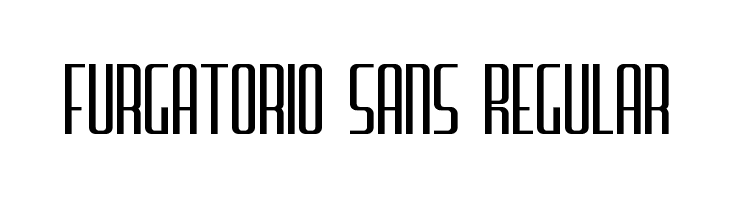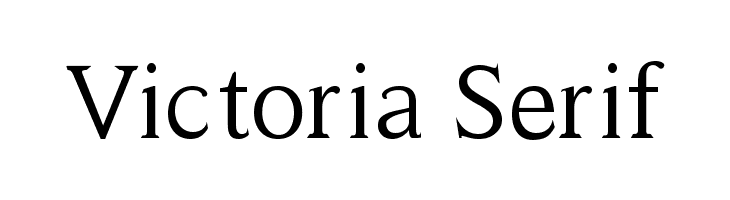
A playful, bold font with a bubble-like outline and cartoonish style.
A playful, bold outline font with a three-dimensional appearance.
A bold, distressed font with a rugged, textured appearance and hand-drawn quality.
A bold slab serif font with strong, block-like serifs and excellent readability.
A bold, narrow font with sharp angles and a modern aesthetic.
A geometric, angular font with a modern and technical style.
A bold, abstract font with fragmented, angular characters.
A bold, jagged font with a chaotic, shattered appearance.
A bold, geometric font with angular, runic-inspired characters.
A bold, fragmented font with jagged edges and an abstract design.
An abstract, fragmented font with jagged, irregular shapes.
A bold, heavy sans-serif font with strong, thick strokes for impactful designs.
A bold, italicized sans-serif font with a modern and dynamic style.
A bold, italic sans-serif font with a modern and dynamic style.
A bold, modern sans-serif font with strong, clean lines.
A bold, heavy italic sans-serif font with a modern and dynamic style.
A modern, slightly condensed font with medium contrast and a professional appearance.
A bold, distressed font with a rugged, weathered appearance.
An ornate, Gothic-inspired font with intricate, calligraphic details.
A modern, geometric sans-serif font with clean lines and balanced spacing.
A clean, modern sans-serif font with uniform strokes and a slightly condensed style.
A modern italic font with clean lines and a slightly condensed form.
A bold, decorative font with a vintage, distressed style.
A bold, hand-drawn font with a vintage, playful style.
A decorative, Mayan glyph-inspired pictorial font.
A decorative font with intricate, nature-inspired illustrations in each character.
A runic-inspired font with angular, geometric shapes and medium contrast.
A bold, blackletter font with Christian monograms and symbols, ideal for historical themes.
A pixelated, dot-matrix font inspired by vintage LCD displays.
A hieroglyphic, pictorial font mimicking ancient Egyptian script.
A bold, gothic-style font with sharp, angular edges and dramatic flair.